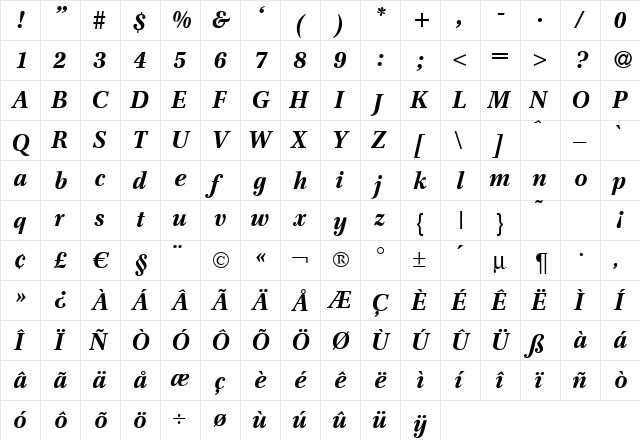
F820-Roman BoldItalic
Design Context for F820-Roman Typeface
F820-Roman is a composed and adaptable typeface that performs quietly and consistently across a wide range of design contexts. The slanted form adds forward momentum and visual energy. The heavy weight commands attention and anchors typographic hierarchies.
Pro Tip: Try F820-Roman for annotation and caption copy alongside an upright companion — the contrast in angle creates a dynamic but ordered typographic system.